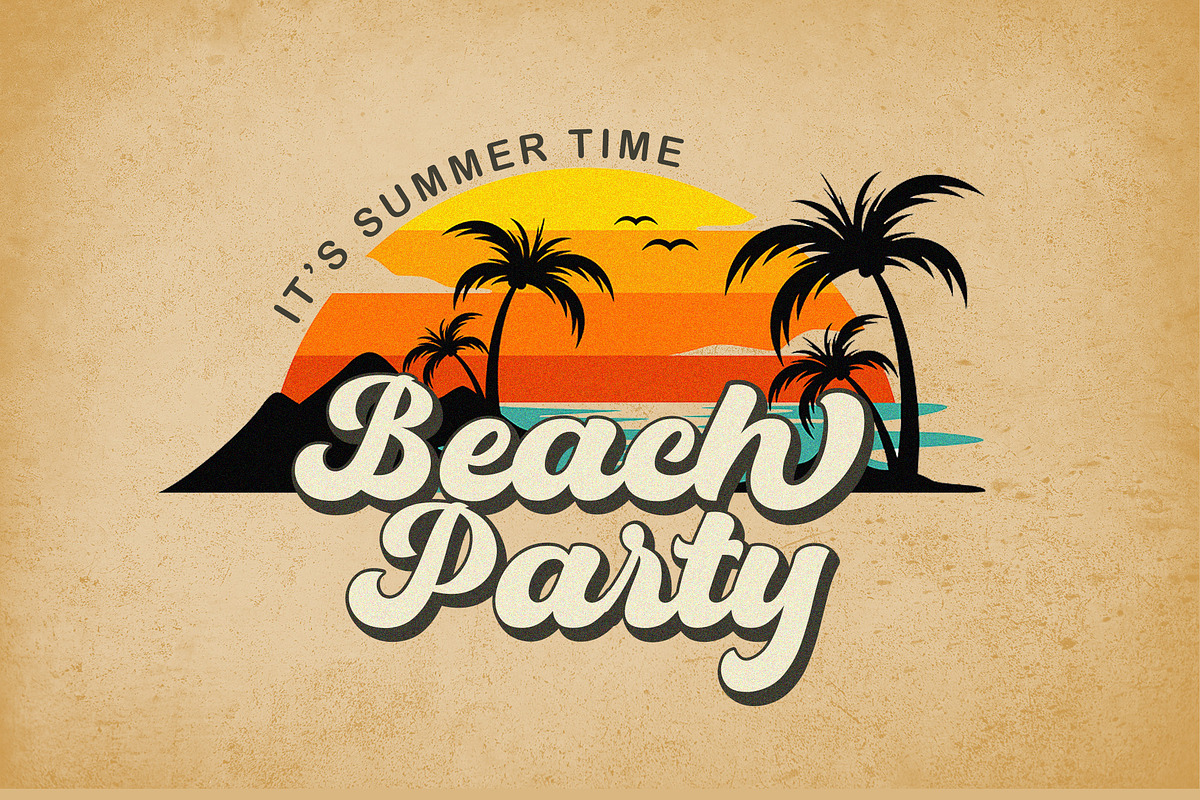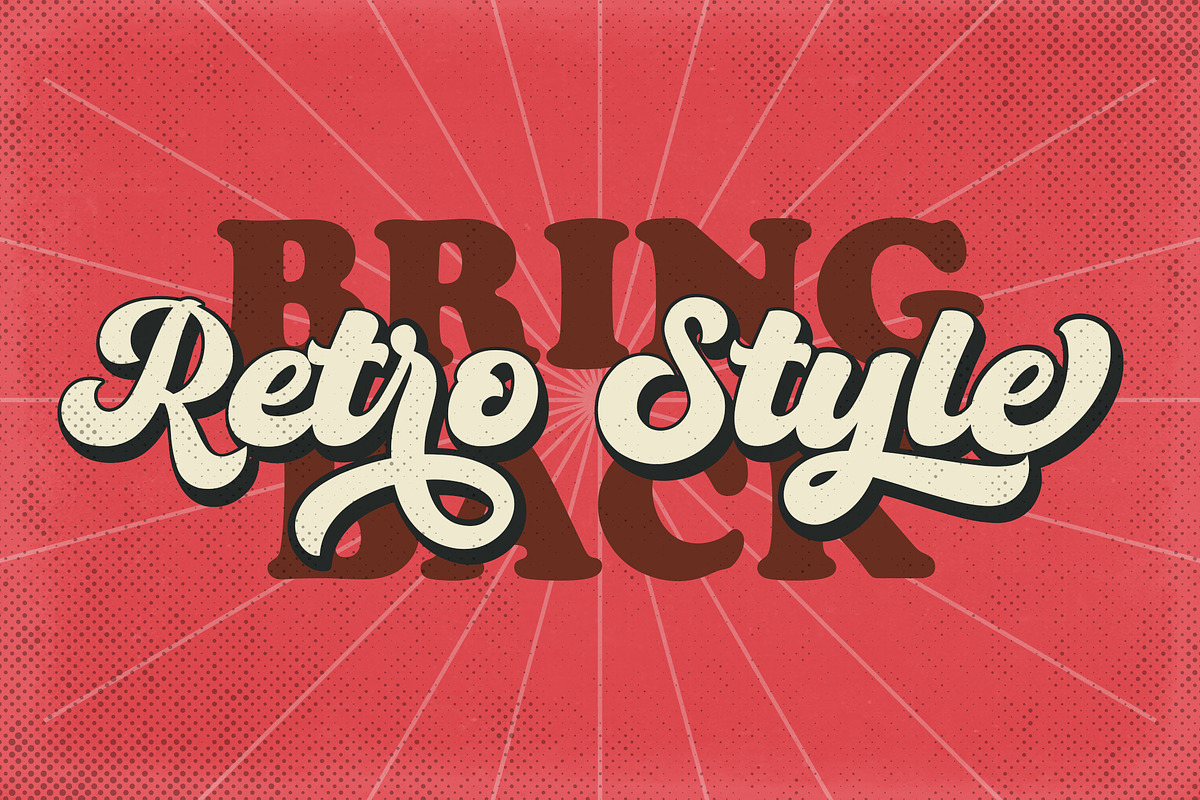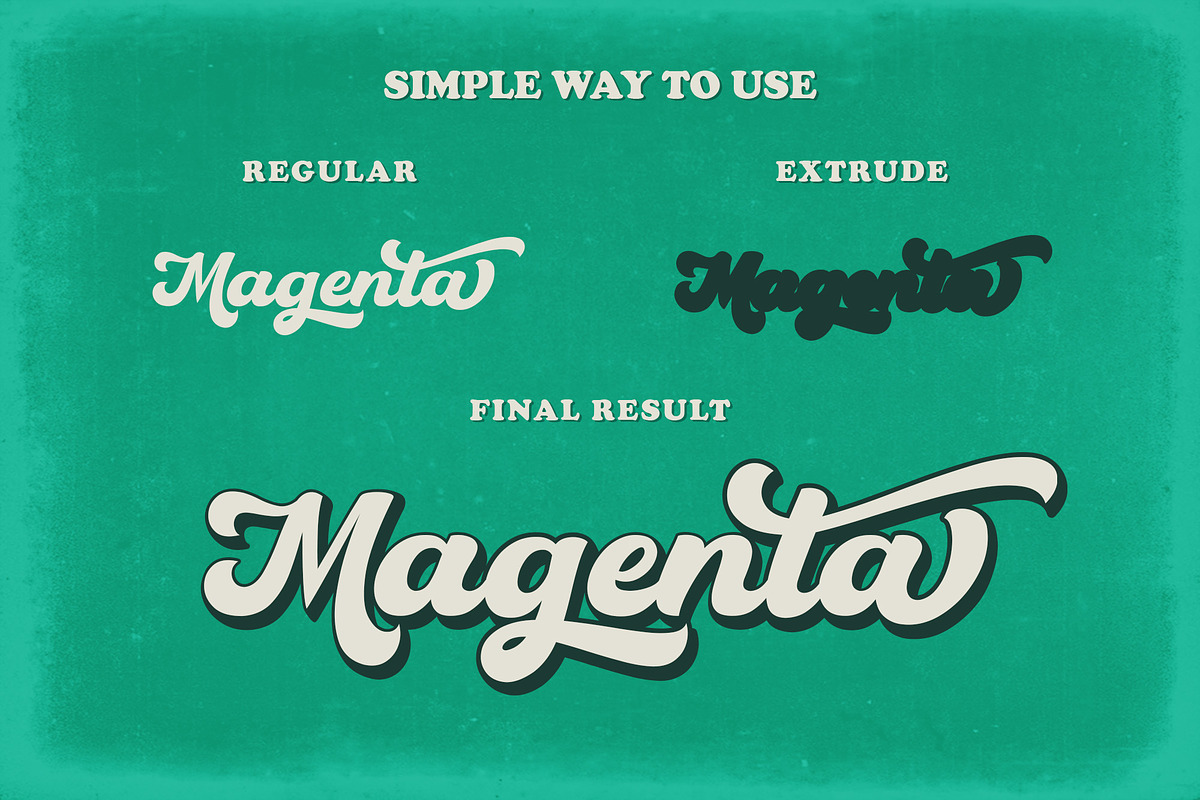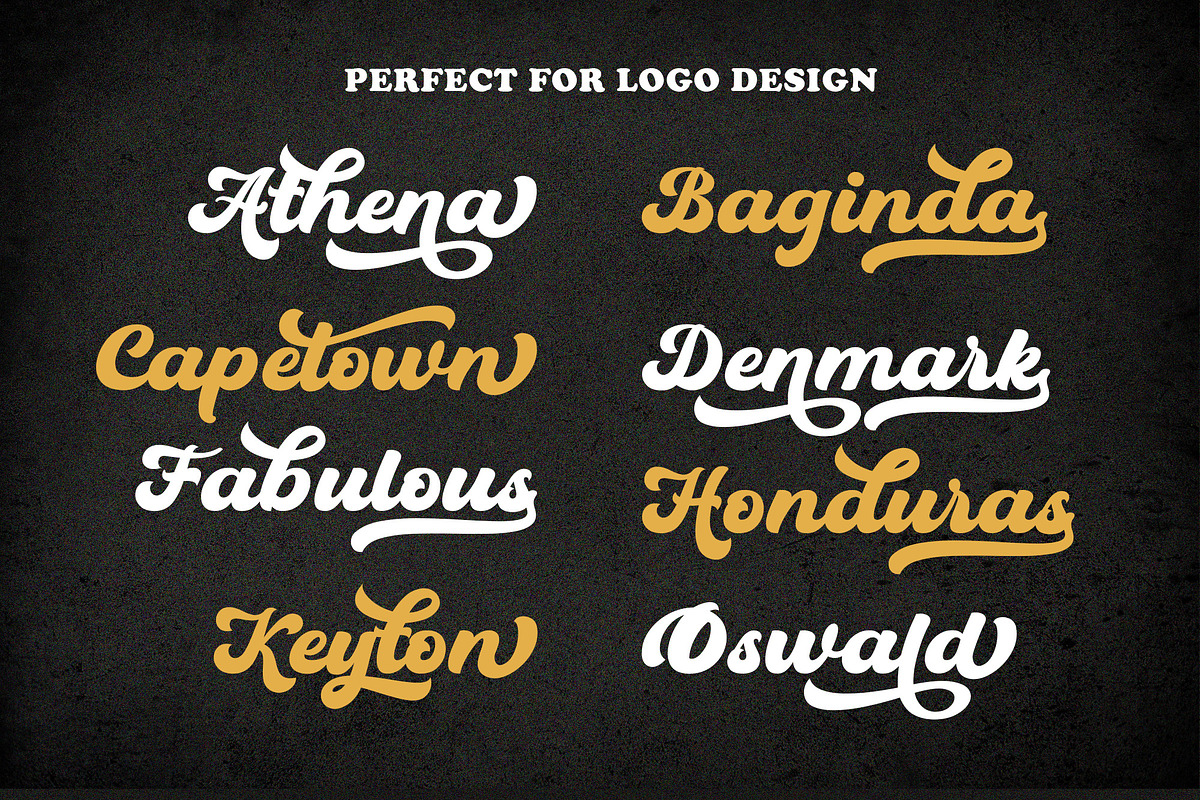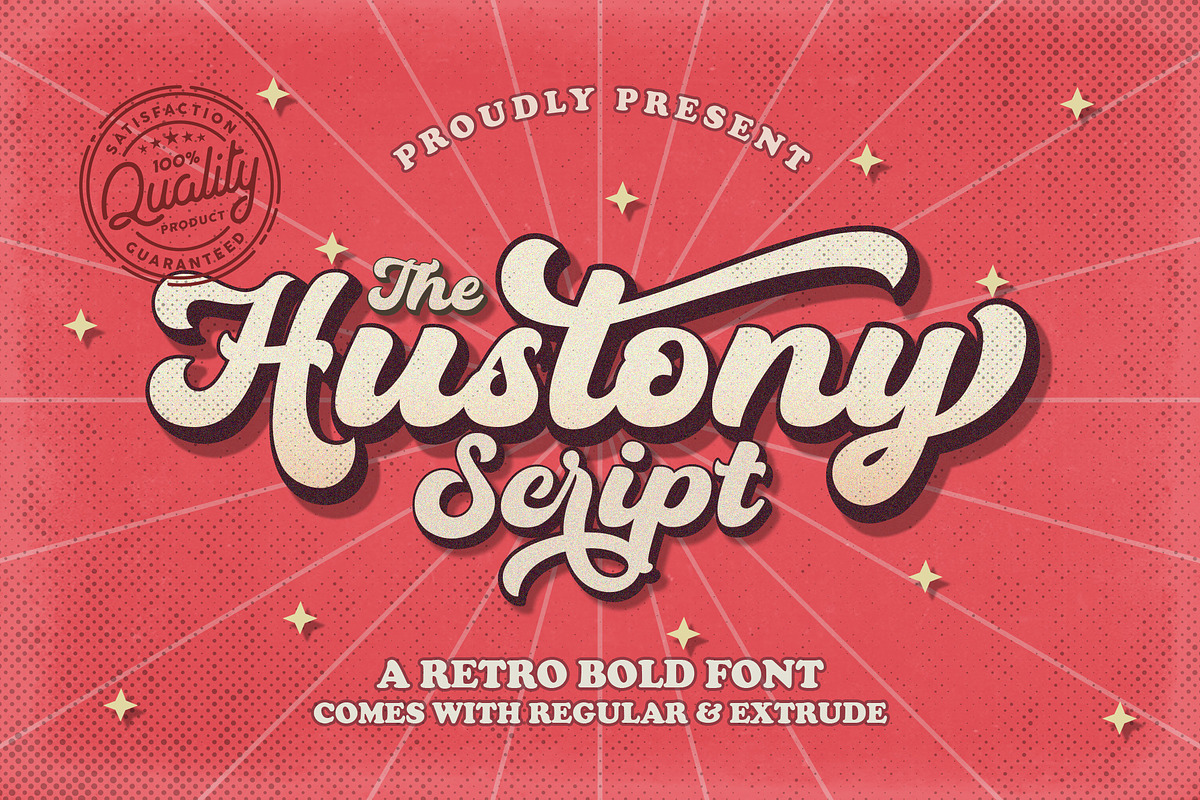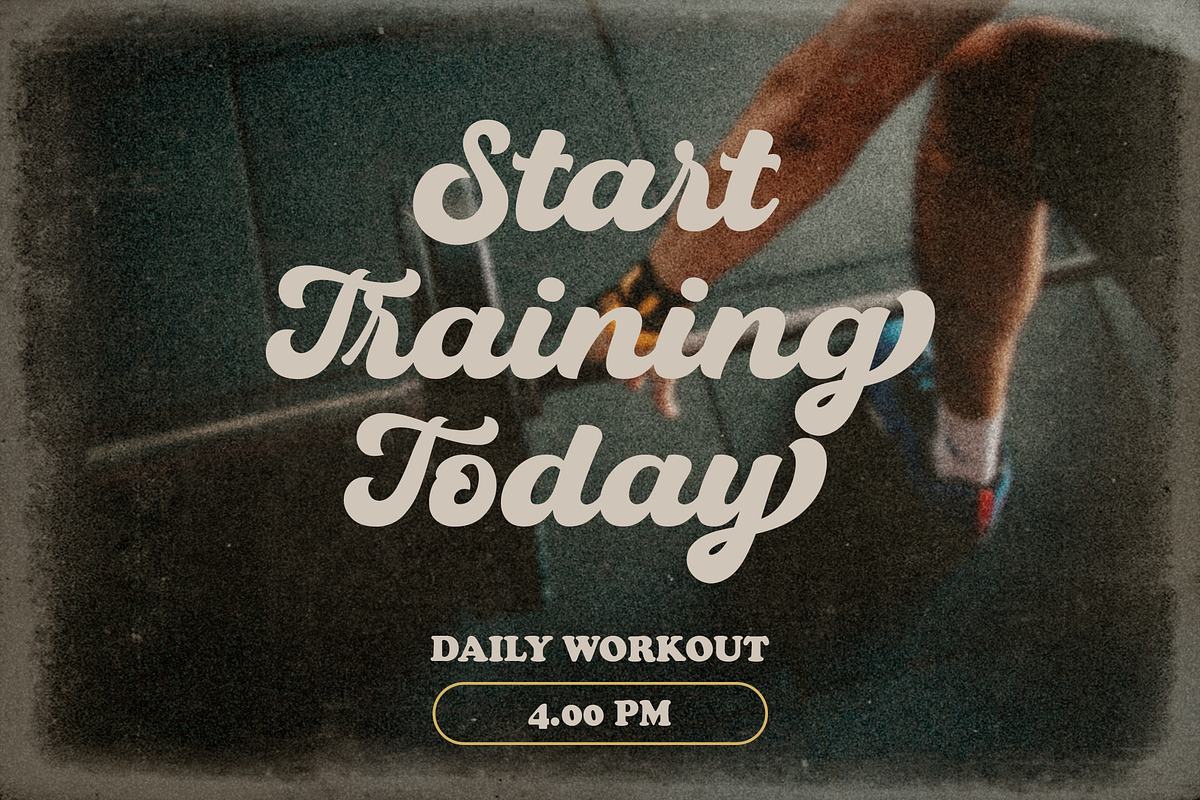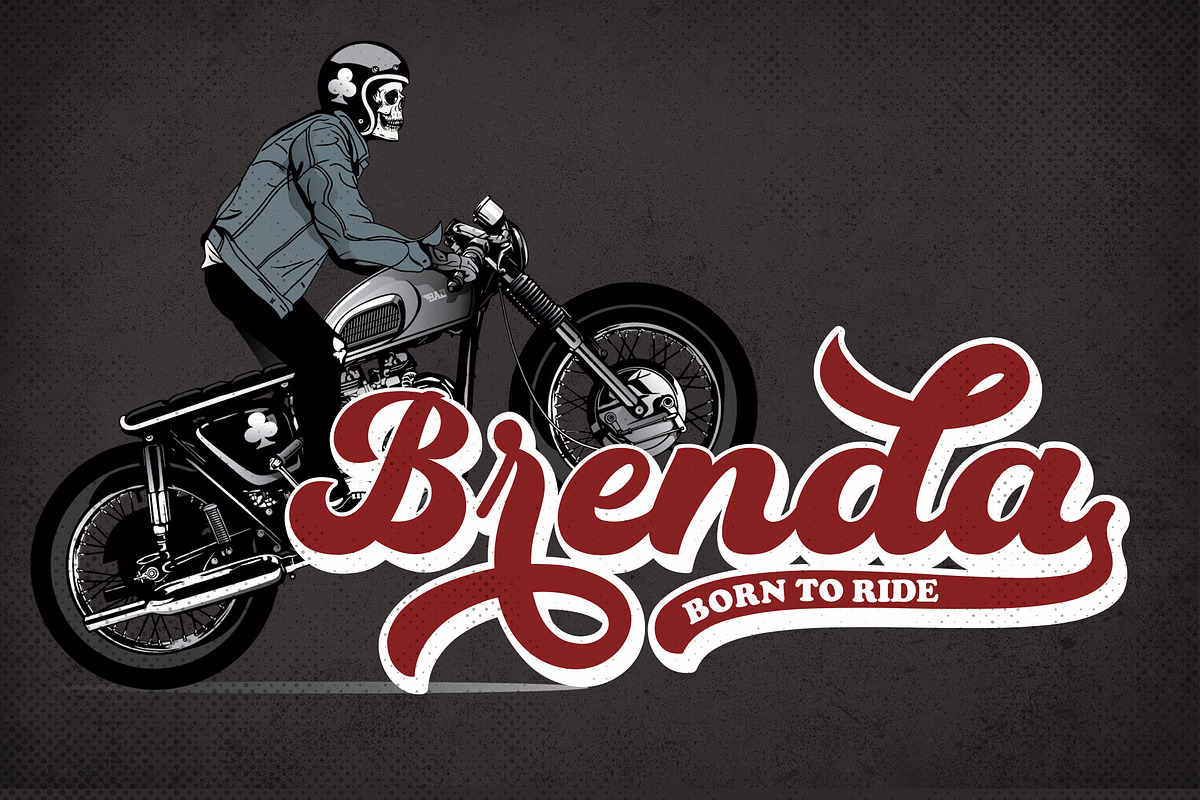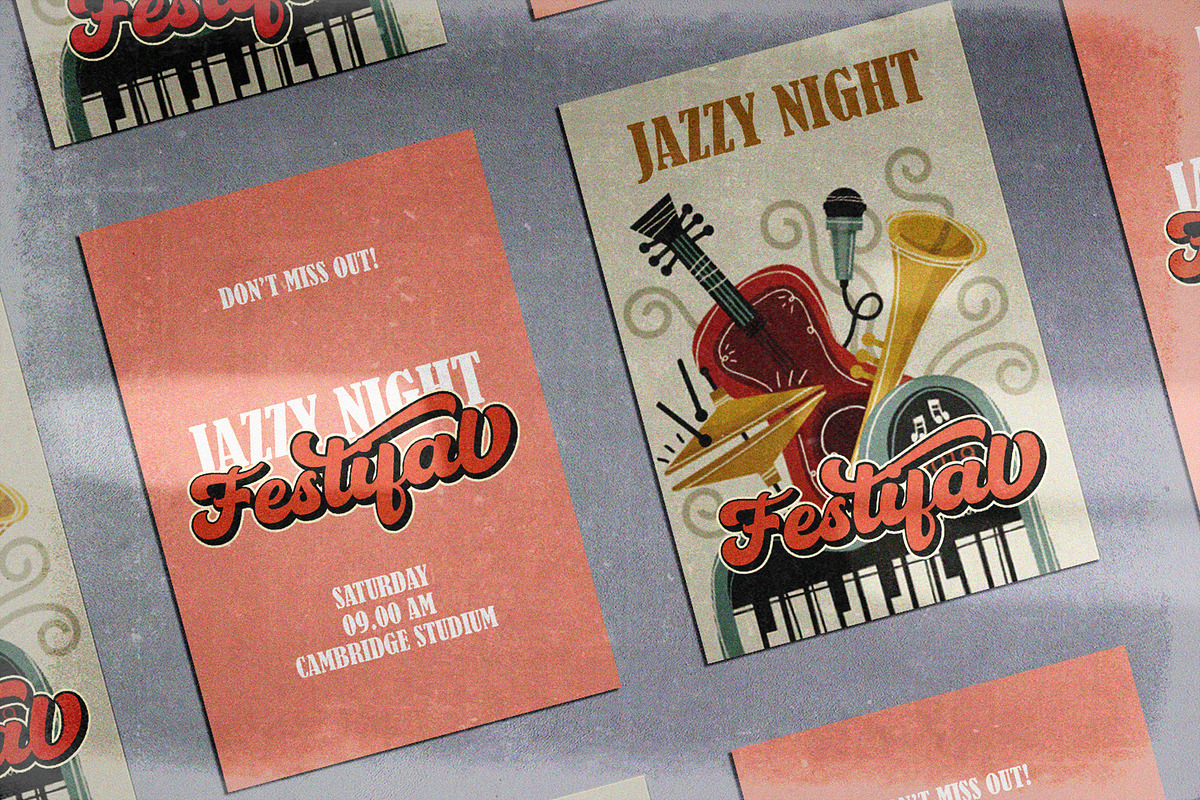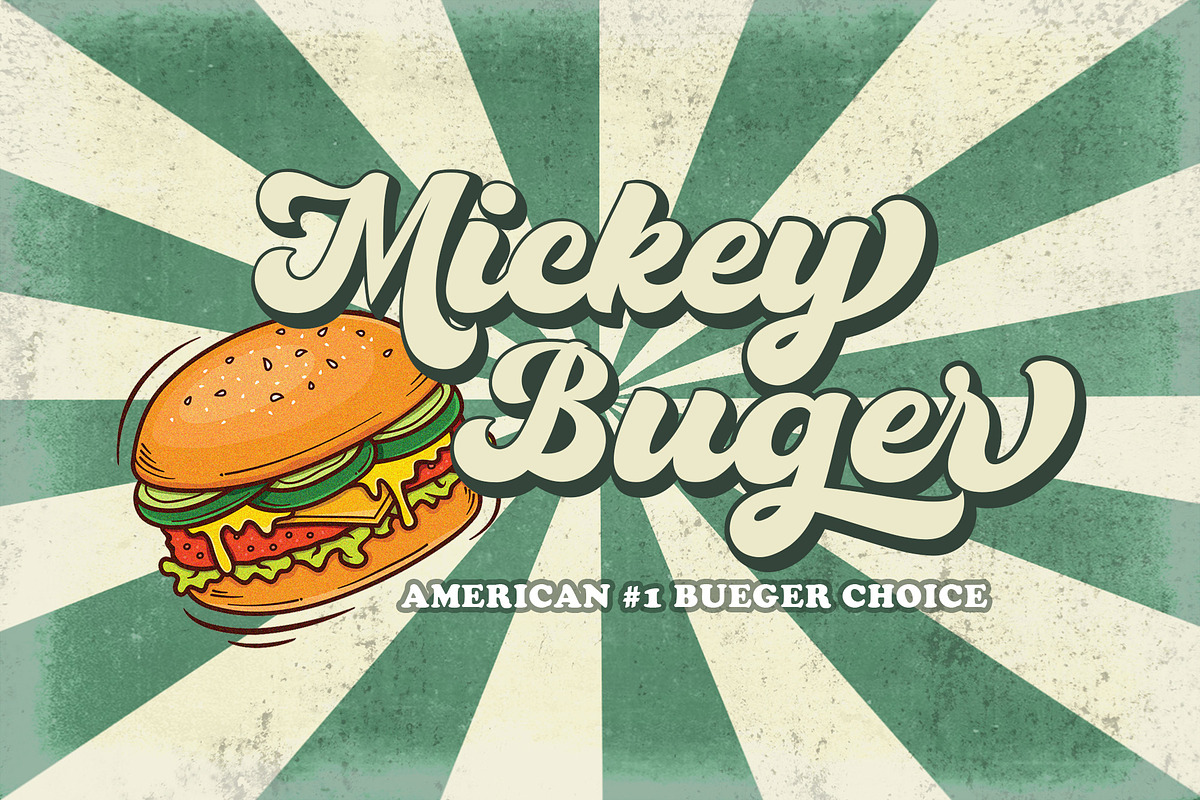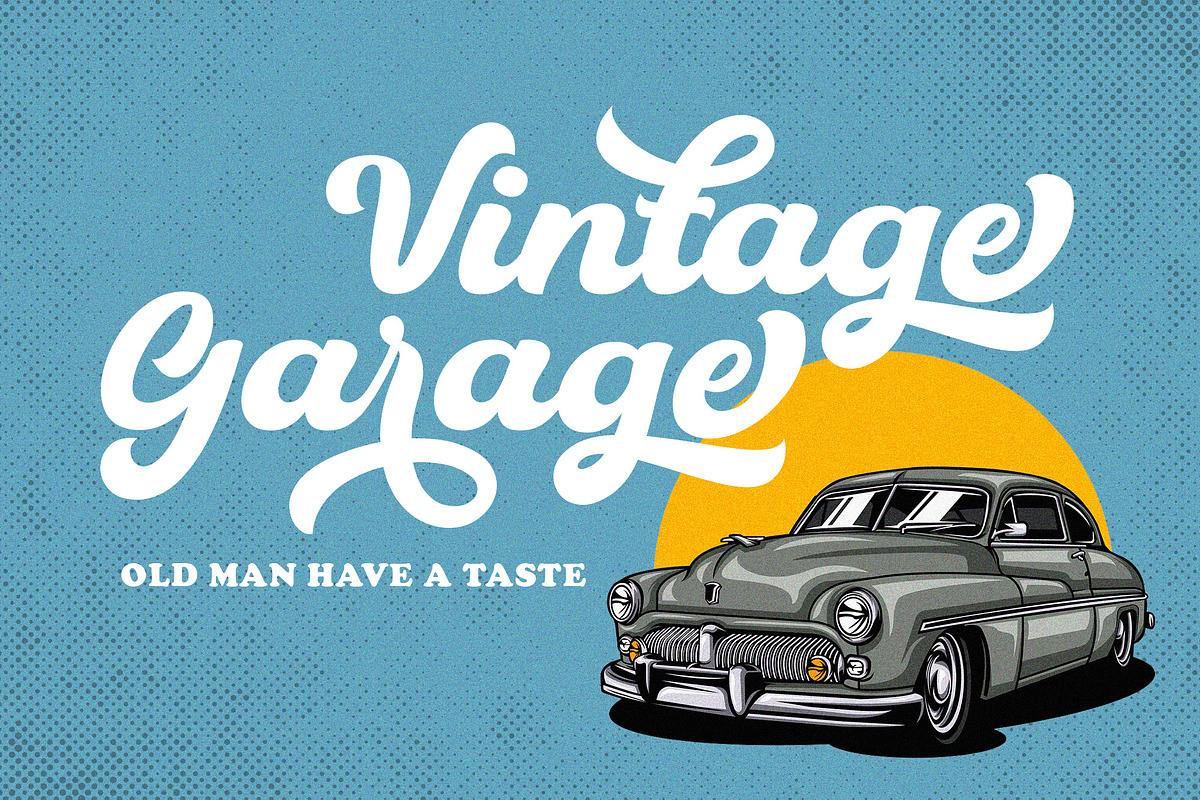
Hustony - Retro Bold Script
Hustony is a layered retro bold script that comes with a regular and extrudes version which will make it easier for you to make a retro effect on a design, this font is designed carefully to be used for many purposes such as logo design, poster design, branding, labels, covers, magazine, wedding design, fashion design and more.